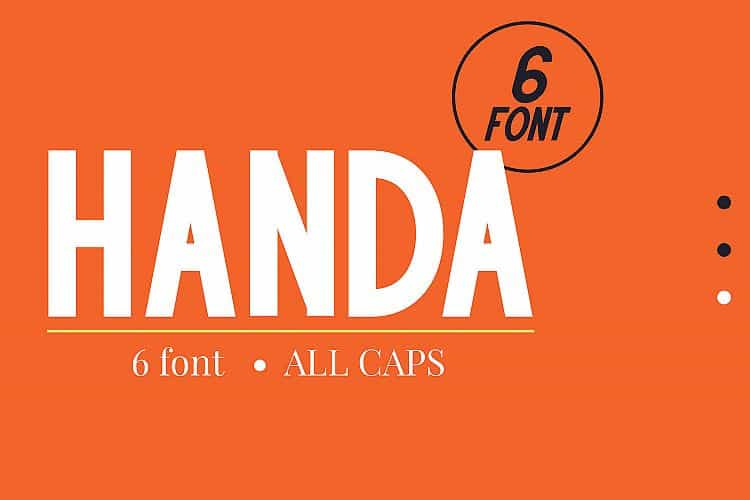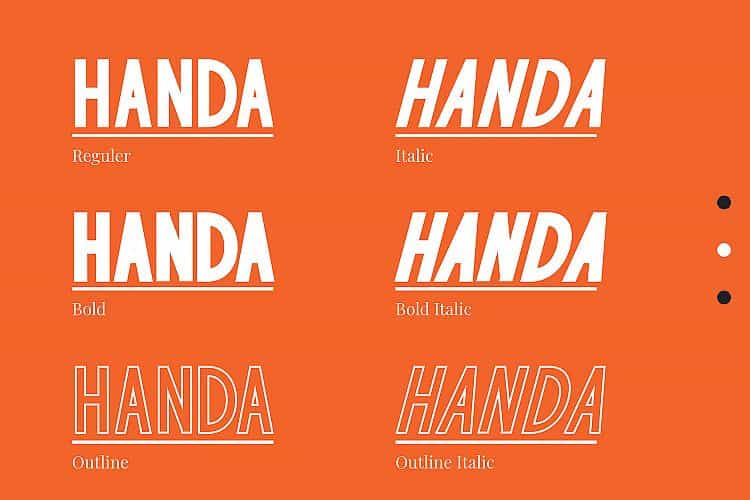
Handa Font – It is a geometric sans serif typeface with some narrow constructed characters which are used to liven up the flow of the text written with this font!It is created and distributed by Attype Studio. Handa Sans Font Family is a powerful ALL CAPS sans serif font family which consists of 6 styles. It conveys powerful messages and the typeface can be effectively used in Magazines, Posters, Branding, Websites etc.